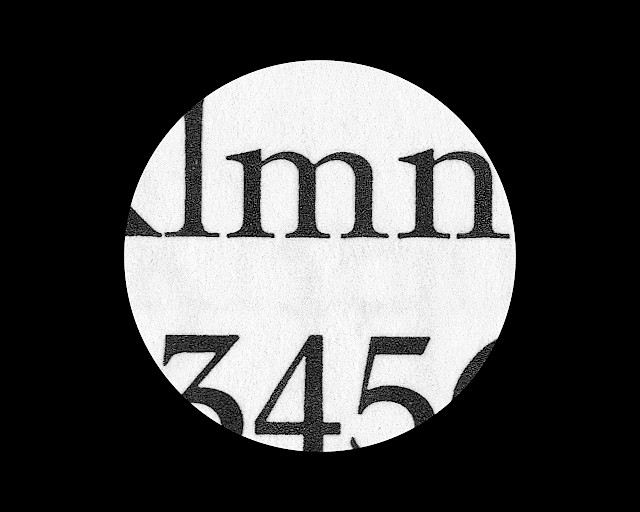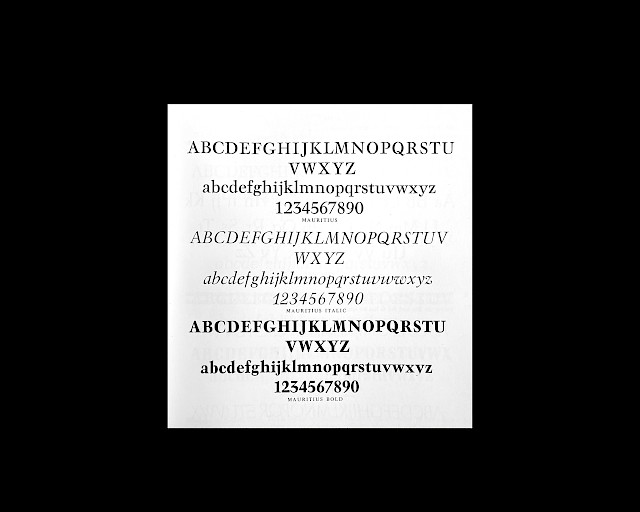
Mauritius by Georg Trump for Weber ( 1968 )
ToMentor is built on the wisdom of modern serif typefaces such as the Times New Roman by Stanley Morison for ( 1932 ) The Times or Magister by Aldo Novarese for Nebiolio ( 1966 ), with the intention of proposing a timeless companion in the vast expanse of serif fonts. ToMentor draws inspiration from Mauritius by Georg Trump for Weber ( 1968 ) by highlighting the singular design features of the drops present in the lowercase « a », « c » or « f ». On the other hand, the typeface borrows proportions from grotesque typefaces that feature a strong x-height and a wide body, making it compatible with compact lineheights. The family ranging from regular to bold, in both regular and extended is a versatile tool for body applications as well as for impact in large sizes. Designed between 2017–2023, first released in 2017.
Mentor